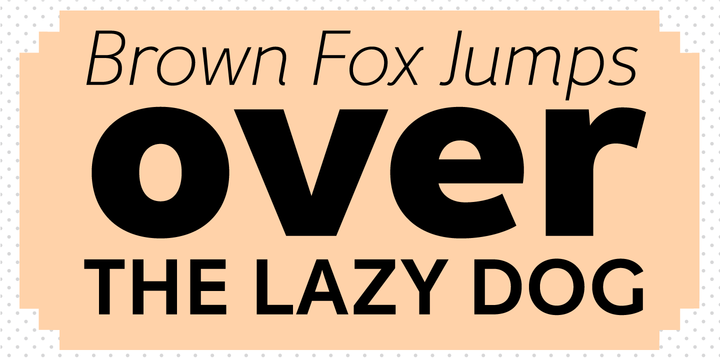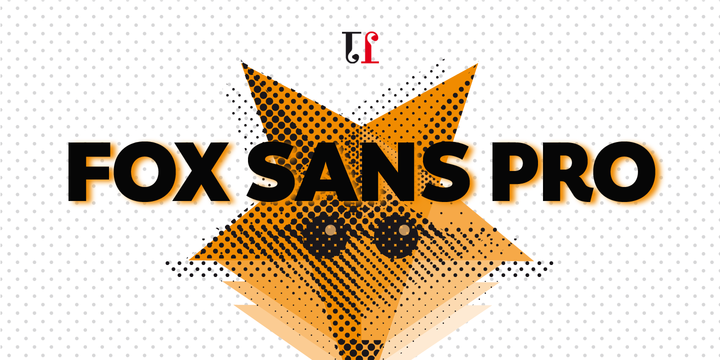
Fox Sans Pro
Fox Sans Pro Font
Fox Sans Pro Font Family
Fox Sans Pro – an upgraded version of Fox Sans TRF (2008), with careful refinements to glyph shapes and extension of glyph amounts, which enabled support of more Latin languages as well as support of Cyrillic. Four more styles have been added to the original six styles.